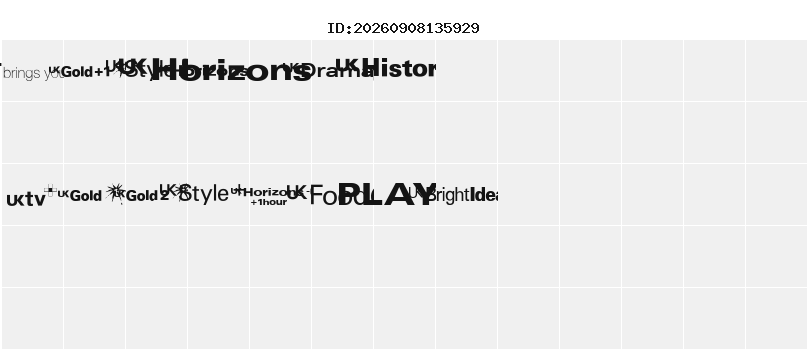
UKtv Family Logos Preview
About UKtv Family Logos.ttf
UKtv Family Logos.ttf is a modern, elegant sans-serif font designed for ultimate readability and visual harmony. Perfect for branding, headlines, web design, and print materials.